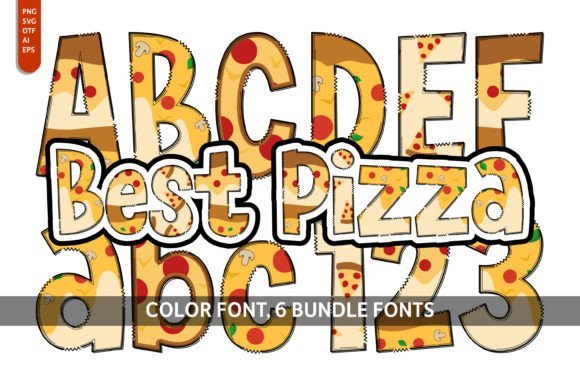
Whimsical Words: The Magic of the Best Pizza Collection Font
Do you remember the moment when you first saw a font that made your heart skip a beat? For many designers, it’s the moment when the perfect font combines with a great idea to create something truly magical. It’s the spark that sets creativity ablaze, and it’s exactly what we’re going to talk about in this article – the Best Pizza Collection Font.
Imagine a world where words dance across the page in vibrant colors, inviting readers to join the fun. That’s exactly what the Best Pizza Collection Font is all about. This collection of pizza-themed color fonts is designed to bring a playful touch to your designs, making them perfect for children’s books, posters, invitations, and more. For designers, the Best Pizza Collection Font is a valuable resource that can add an extra layer of creativity to their work.
Key Features of “Best Pizza Collection Font”
- Unique Characteristics: The font features a hand-drawn, distressed design that gives it a unique, vintage look, perfect for adding a touch of personality to pizza-related branding and marketing materials.
- Characters and Glyphs: The font includes a wide range of characters, including uppercase and lowercase letters, numbers, punctuation marks, and special characters, as well as a variety of pizza-themed glyphs and icons.
Best Pizza Collection Font Review
Overall, I think the Best Pizza Collection Font is a solid choice for any food-related project, especially when it comes to pizza. Here’s what I like about it:
- ✨ The font’s unique design, which combines elements of Italian and American pizza styles, really stands out. It’s a great conversation starter!
- ✨ The font’s versatility is another plus. It can be used for a wide range of pizza-related projects, from menus to advertisements to packaging.
- ✨ The font’s high-quality vector format makes it easy to resize and customize without losing any detail.
- ⚠️ The font’s limited character set might make it less suitable for longer text blocks or projects that require a wide range of characters.
- ⚠️ Some users may find the font’s bold, playful design to be too loud or overwhelming for certain projects.
Overall, I think the Best Pizza Collection Font is a great choice for any pizza-themed project. While it may have some limitations, its unique design and versatility make it a standout option. If you’re looking for a fun, eye-catching font to add some personality to your project, this one is definitely worth considering.
For the best results, use the Best Pizza Collection Font in conjunction with a bold or italic style to add emphasis to your text. Experiment with different font sizes and colors to create a visually appealing design.
The Best Pizza Collection Font is ideal for use in restaurant menus, food blogs, and social media posts related to pizza and Italian cuisine. It’s also suitable for use in graphic design projects that require a fun and playful font.